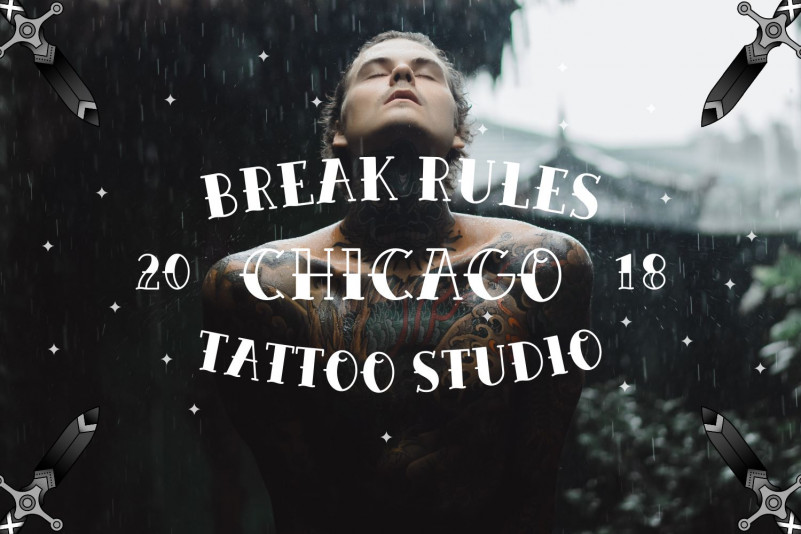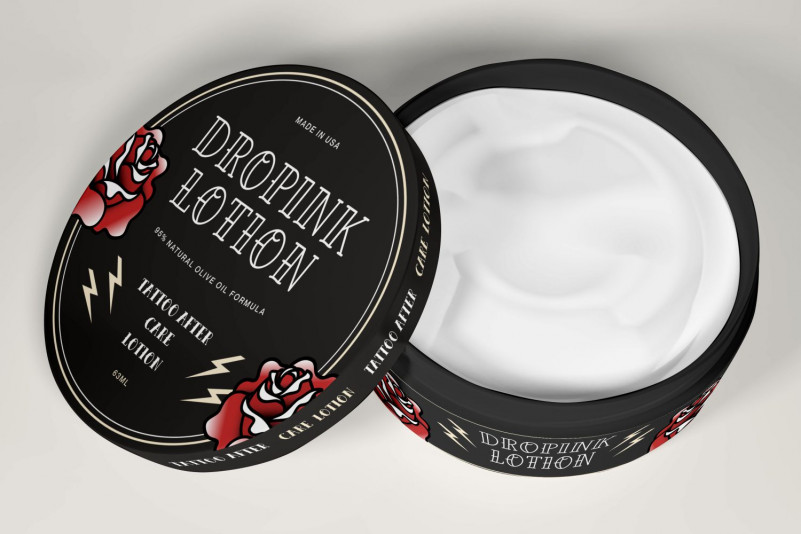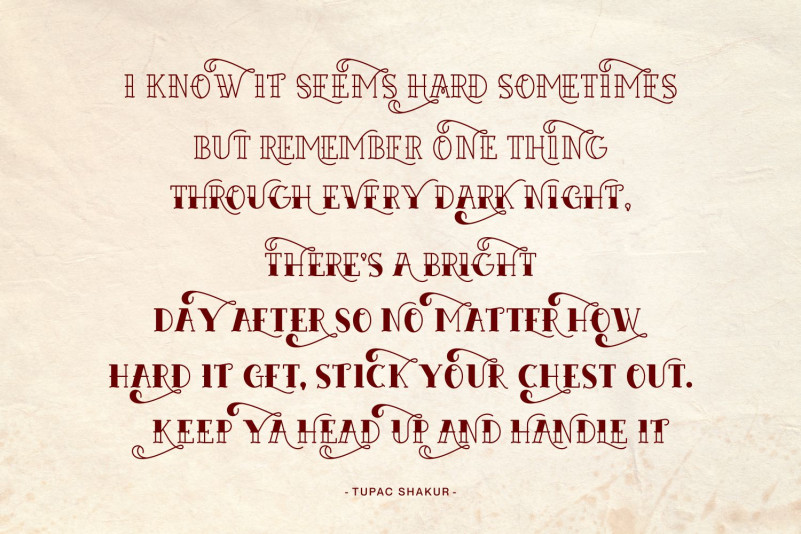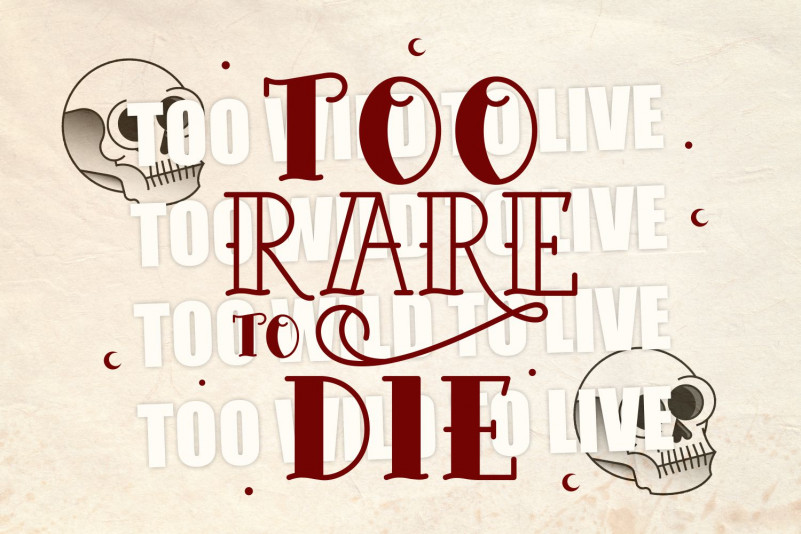
Elvishwild Font
Elvishwild Display Font
This is a genuine and cool display font. It can be added to various designs, both formal and informal. Get inspired by its sophisticated style and use it to elevate your creations.